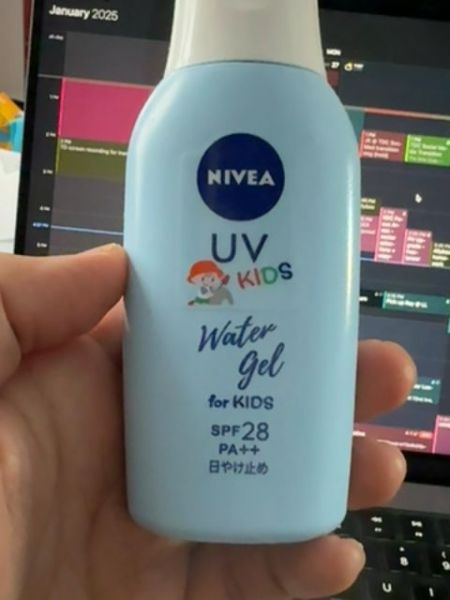
Nivea UV Kids Water Gel
A sunscreen gel designed specifically for children, offering SPF 28 protection against UV rays. It is meant to protect delicate skin from sun damage.
The typography uses a mix of bold sans-serif fonts for clarity and emphasis, particularly in the brand name 'NIVEA' and the term 'UV KIDS'. The playful use of colors in the word 'KIDS' highlights the product’s target audience. The script-like font used for 'Water Gel' adds a gentle and soft touch, resonating with the product’s gentle nature.
The packaging is a light blue plastic bottle that is easy to hold, aimed at a playful and child-friendly presentation. The design features a small graphic of a child playing, suggesting a fun and outdoor appeal.
- Designed for kids' sensitive skin.
- Provides SPF 28 protection.
- Contains PA++ rating for UVA protection.